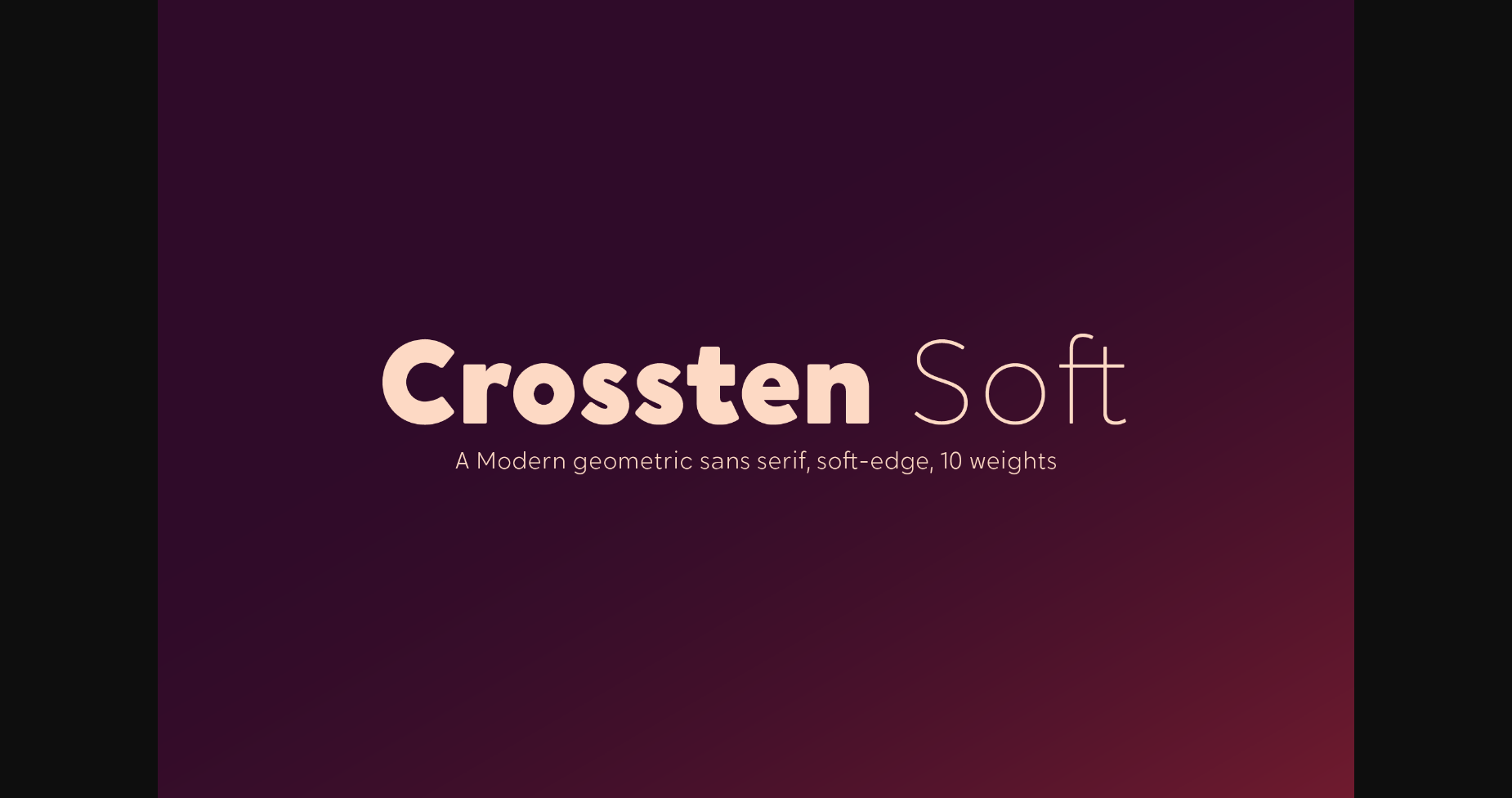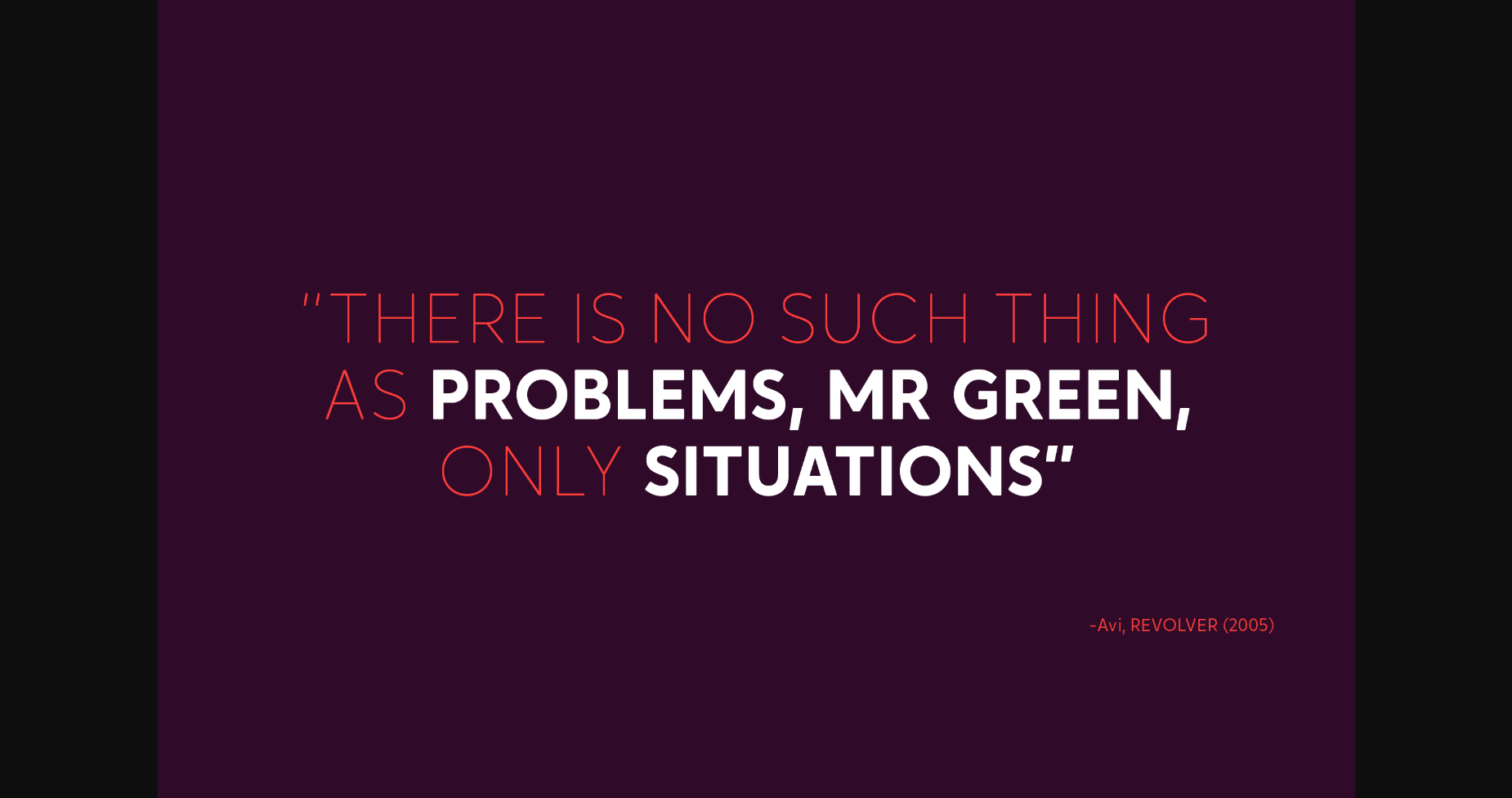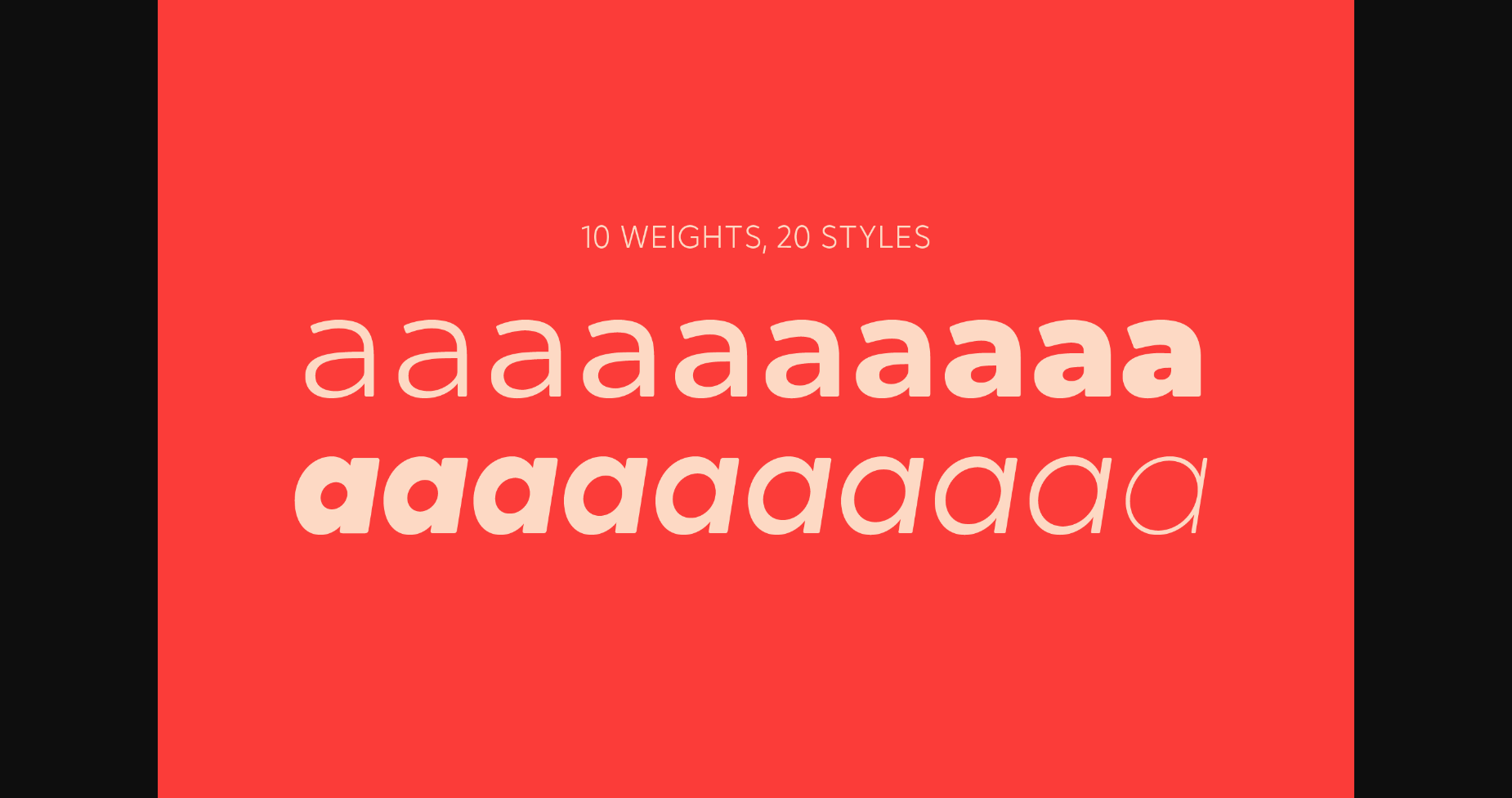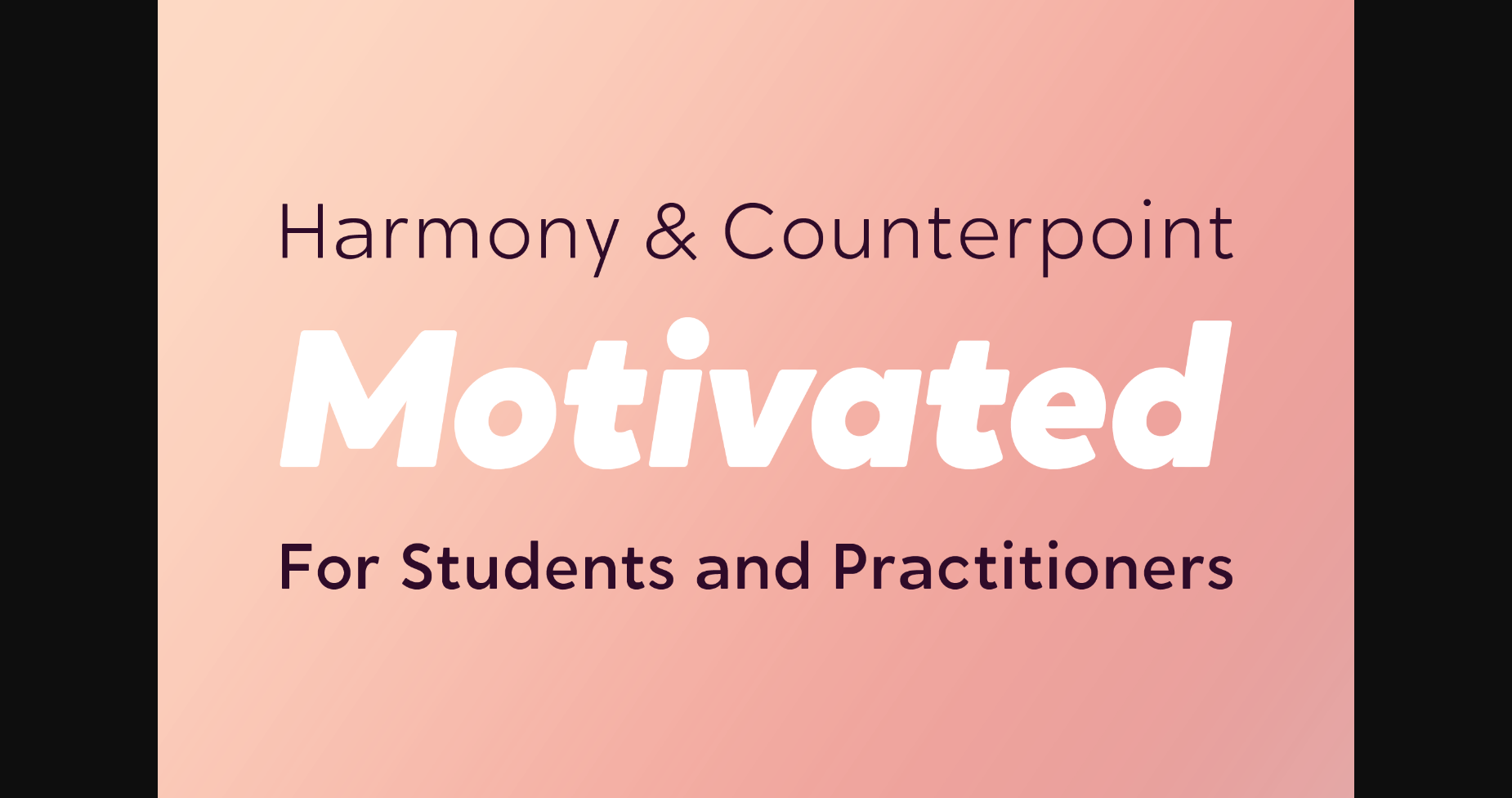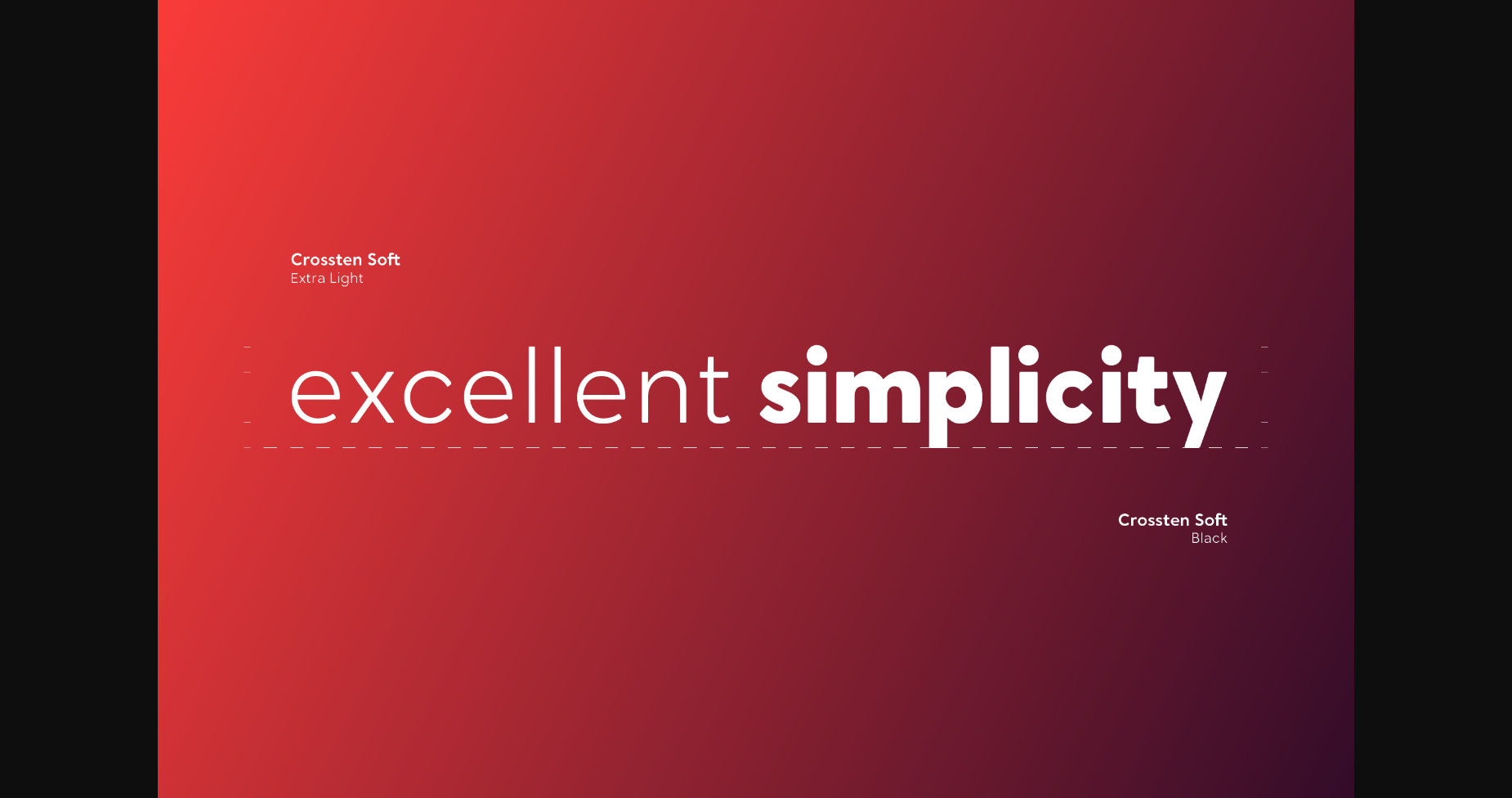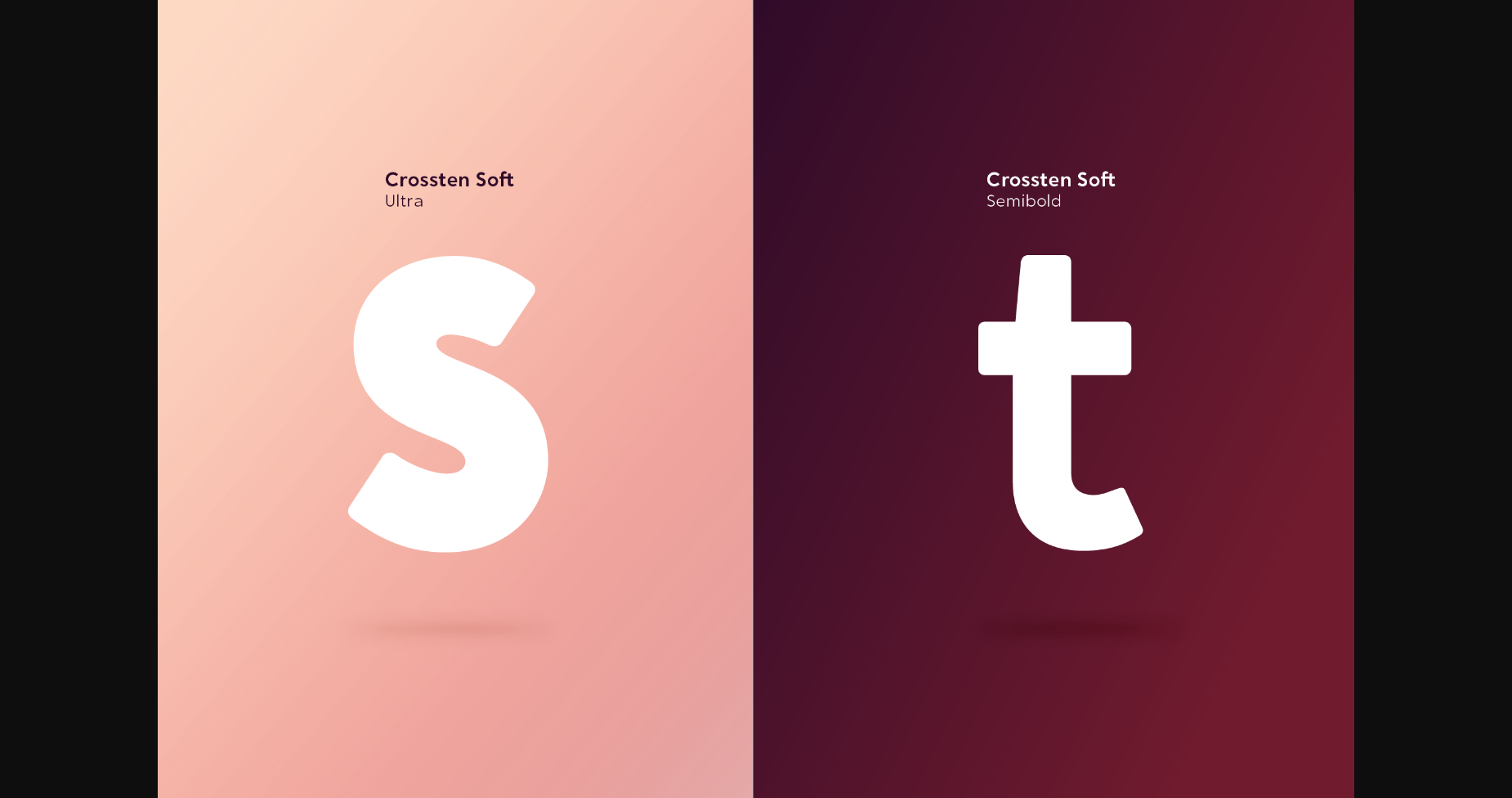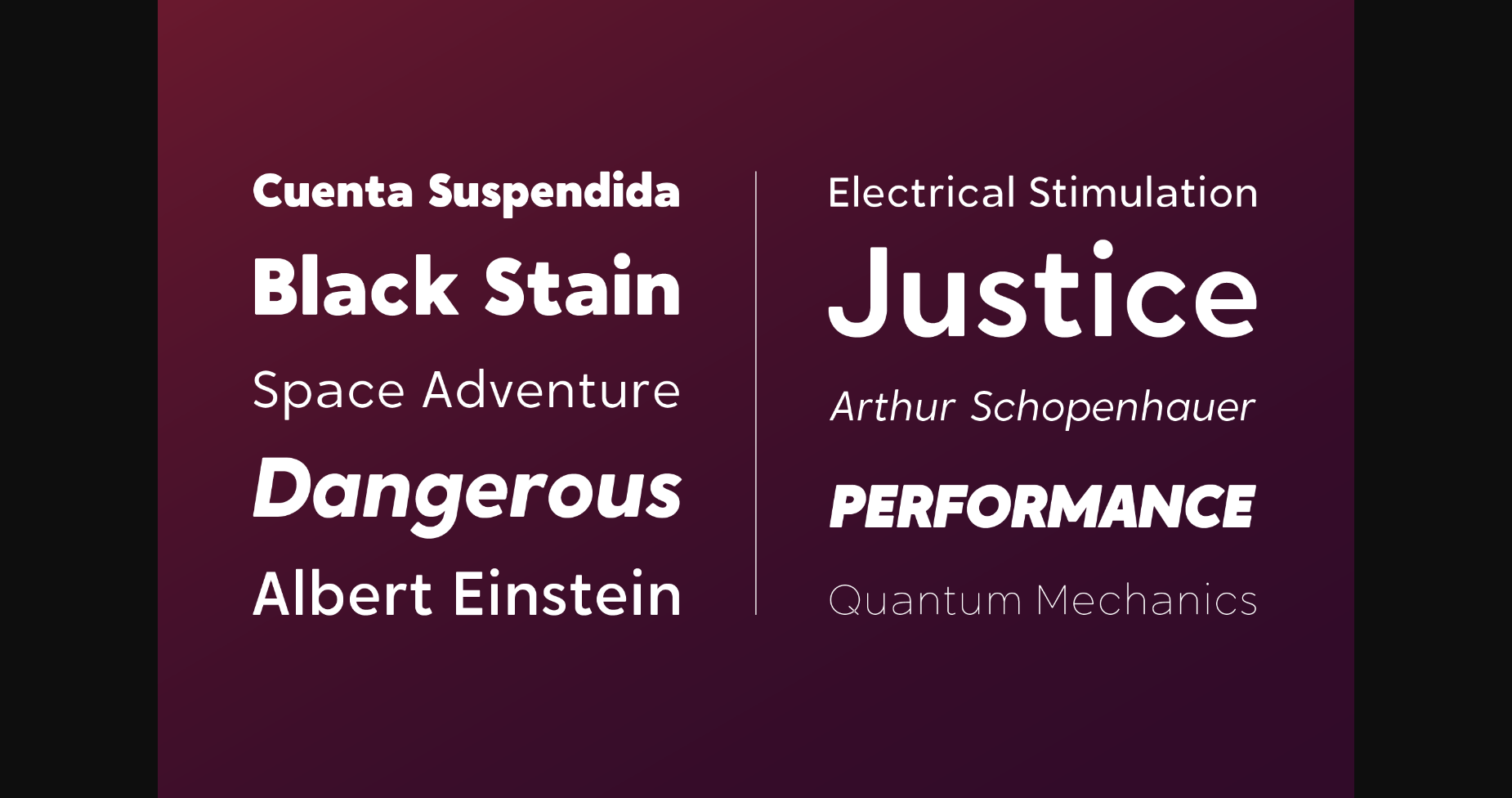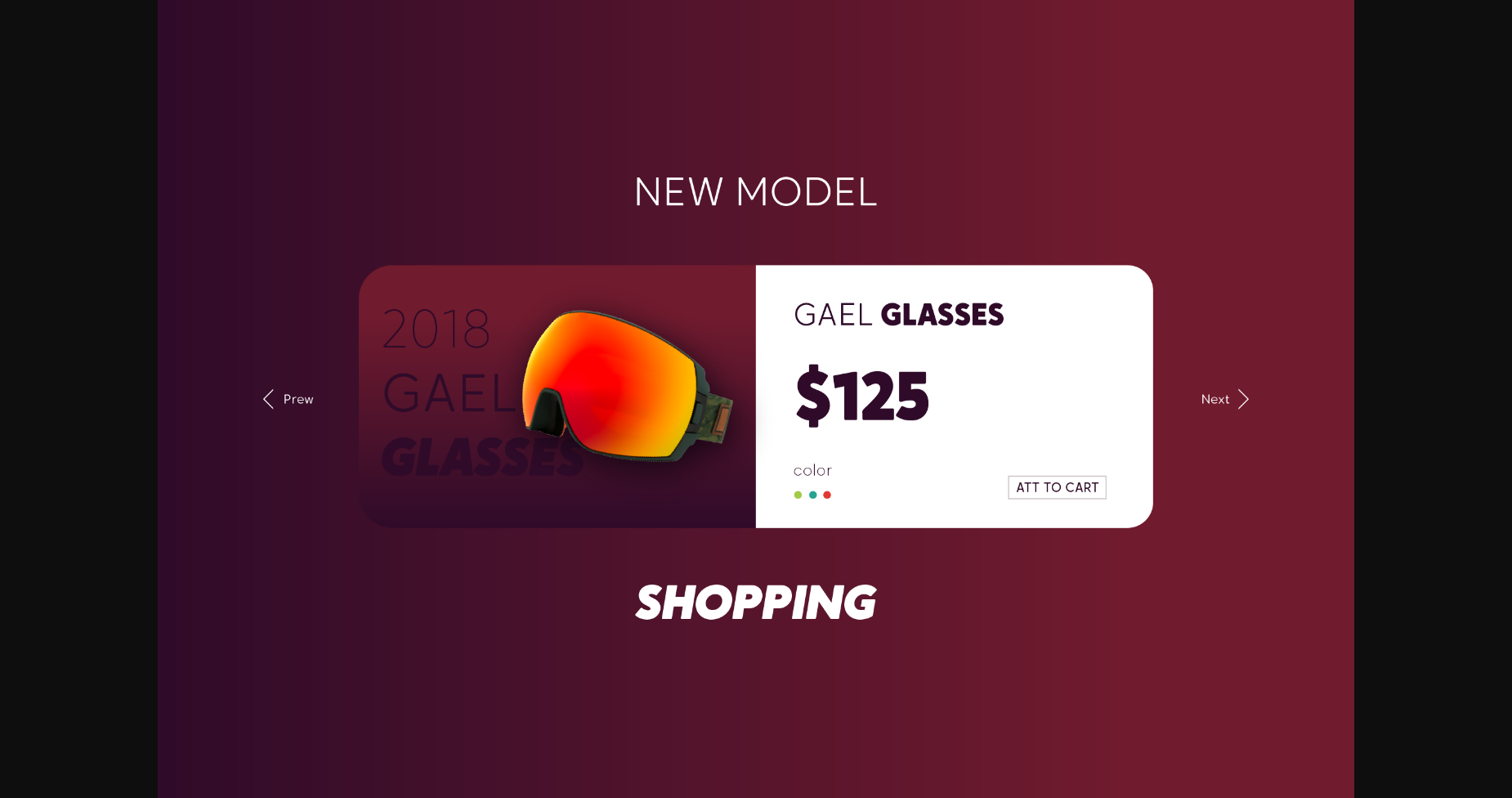
HomeSans Serif FontsCrossten Soft Font Sans Serif Fonts Crossten Soft Font FacebookXPinterestWhatsApp 1 of 10 ... Crossten Soft Font Poster 2... Crossten Soft Font Poster 3... Crossten Soft Font Poster 4... Crossten Soft Font Poster 5... Crossten Soft Font Poster 6... Crossten Soft Font Poster 7... Crossten Soft Font Poster 8... Crossten Soft Font Poster 9... Crossten Soft Font Poster 10... About Crossten Soft Font Crossten Soft is a delicate and thin lettered sans serif font. No matter the topic, this font will be an incredible asset to your fonts’ library, as it has the potential to elevate any creation. DOWNLOAD NOW People also explored Javin Font Konstantinos Font Little Flower Font Memo Wish Font Diamant Monogram Right There Font Zincand Font Happy Font Nikola Font 408 0 TagsCrossten Soft Font Previous articleBlankspot FontNext articleAbsurf Font LEAVE A REPLY Cancel reply Comment: Please enter your comment! Name:* Please enter your name here Email:* You have entered an incorrect email address! Please enter your email address here Website: Save my name, email, and website in this browser for the next time I comment. Personal Use Free Charletto Personal Use Free Read more about this font Starborn Font Personal Use Free Read more about this font Gratisan Personal Use Free Read more about this font Limejuice Personal Use Free Read more about this font BLOG Free Fonts Risk: Why Free Fonts Can Be Dangerous for Designers Free Fonts Risk: Why Free Fonts Can Be Dangerous for Designers Using free fonts is a common practice in web and graphic design. However, the... Elegant Wedding Invitation Fonts – Handwritten & Script Fonts Transform Your Website: Elevate Your Typography with 7 Best Web Font Generators 5 Fonts That Will Dominate Design Trends in 2026